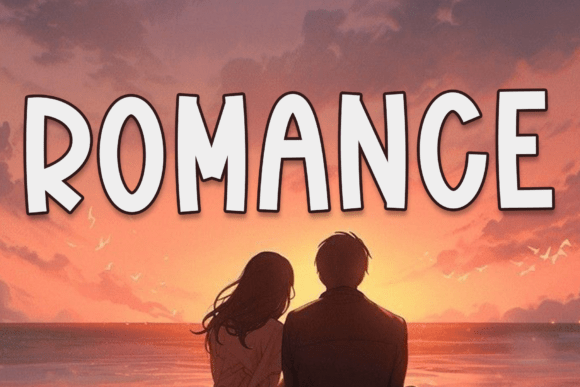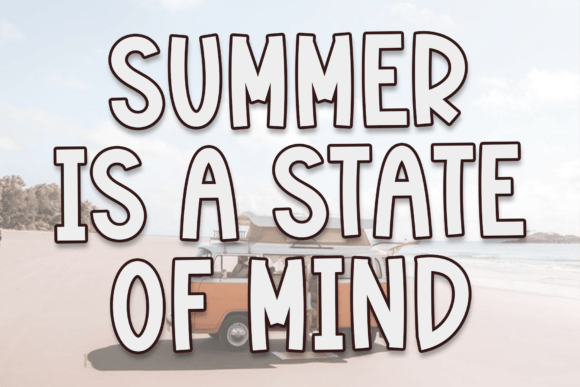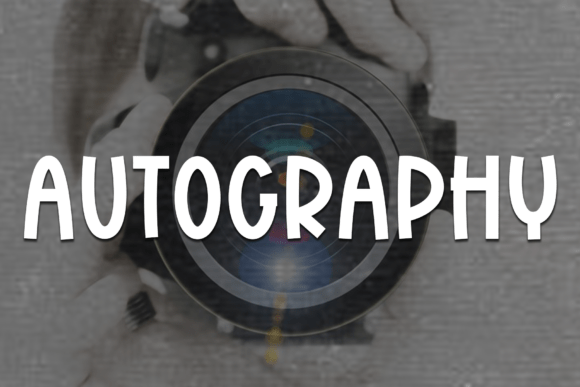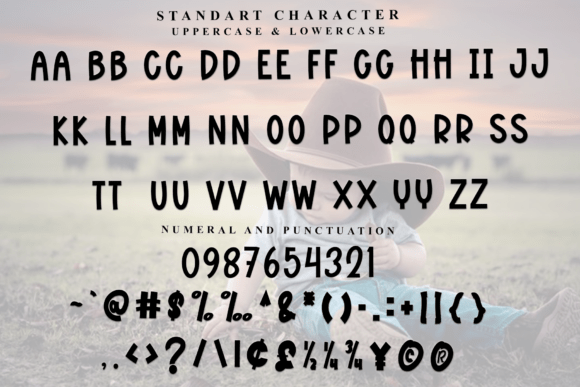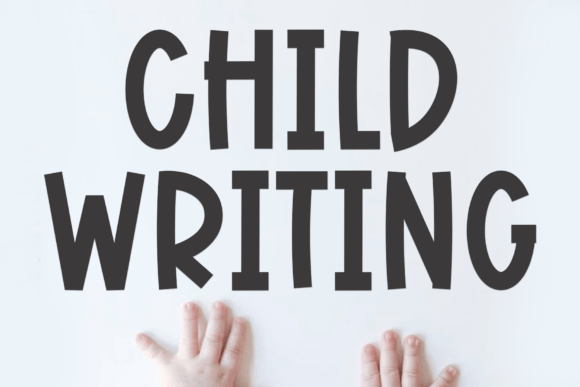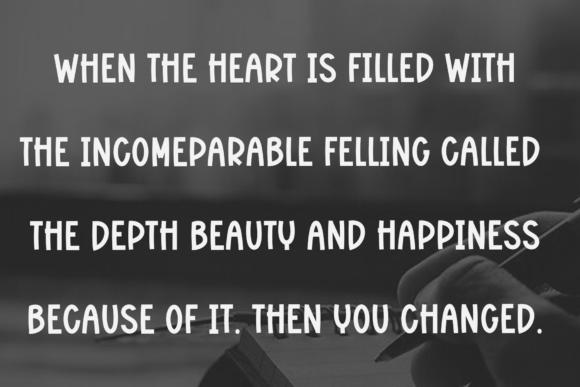
Baby Cowboy Font: A Sweet and Friendly Handwritten Font for Your Designs
Are you a designer or crafter looking for a unique and friendly font to add a personal touch to your projects? Look no further than the Baby Cowboy font! This sweet and handwritten font is perfect for a wide range of designs, from invitations and greeting cards to branding and packaging. In this article, we’ll take a closer look at the Baby Cowboy font, its features, and how you can use it to take your designs to the next level.
What is Baby Cowboy Font?
Baby Cowboy is a sweet and friendly handwritten font that is designed to bring a touch of warmth and personality to your designs. Its natural and unique style makes it incredibly fitting to a large pool of designs, from rustic and country-themed projects to more modern and playful ones. The font’s gentle and approachable feel makes it perfect for designs that require a personal touch, such as baby shower invitations, kids’ party invitations, and handmade crafts.
Key Features of Baby Cowboy Font
- Handwritten style: Baby Cowboy font has a beautiful, handwritten style that gives it a personal and unique feel.
- Natural and unique: The font’s natural and unique style makes it incredibly fitting to a wide range of designs.
- Sweet and friendly: The font’s sweet and friendly tone makes it perfect for designs that require a personal touch.
- Highly versatile: Baby Cowboy font can be used for a wide range of designs, from invitations and greeting cards to branding and packaging.
How to Use Baby Cowboy Font in Your Designs
The possibilities are endless when it comes to using Baby Cowboy font in your designs! Here are a few ideas to get you started:
- Create custom invitations: Use Baby Cowboy font to create custom invitations for baby showers, kids’ parties, and other special occasions.
- Design handmade crafts: Add a personal touch to your handmade crafts, such as knitted items, jewelry, and home decor, with Baby Cowboy font.
- Develop a brand identity: Use Baby Cowboy font to create a unique and recognizable brand identity for your business or product.
- Make personalized gifts: Create personalized gifts, such as customized mugs, t-shirts, and tote bags, with Baby Cowboy font.
Tips for Using Baby Cowboy Font
Here are a few tips to keep in mind when using Baby Cowboy font in your designs:
- Pair with complementary fonts: Pair Baby Cowboy font with complementary fonts to create visual interest and hierarchy in your designs.
- Experiment with colors: Experiment with different colors and textures to add depth and personality to your designs.
- Keep it simple: Don’t be afraid to keep your designs simple and clean to let the font shine.
In conclusion, Baby Cowboy font is a sweet and friendly handwritten font that is perfect for designers and crafters looking to add a personal touch to their projects. Its natural and unique style makes it incredibly fitting to a wide range of designs, and its highly versatile nature makes it suitable for a variety of applications. Whether you’re creating custom invitations, handmade crafts, or developing a brand identity, Baby Cowboy font is sure to bring a touch of warmth and personality to your designs.